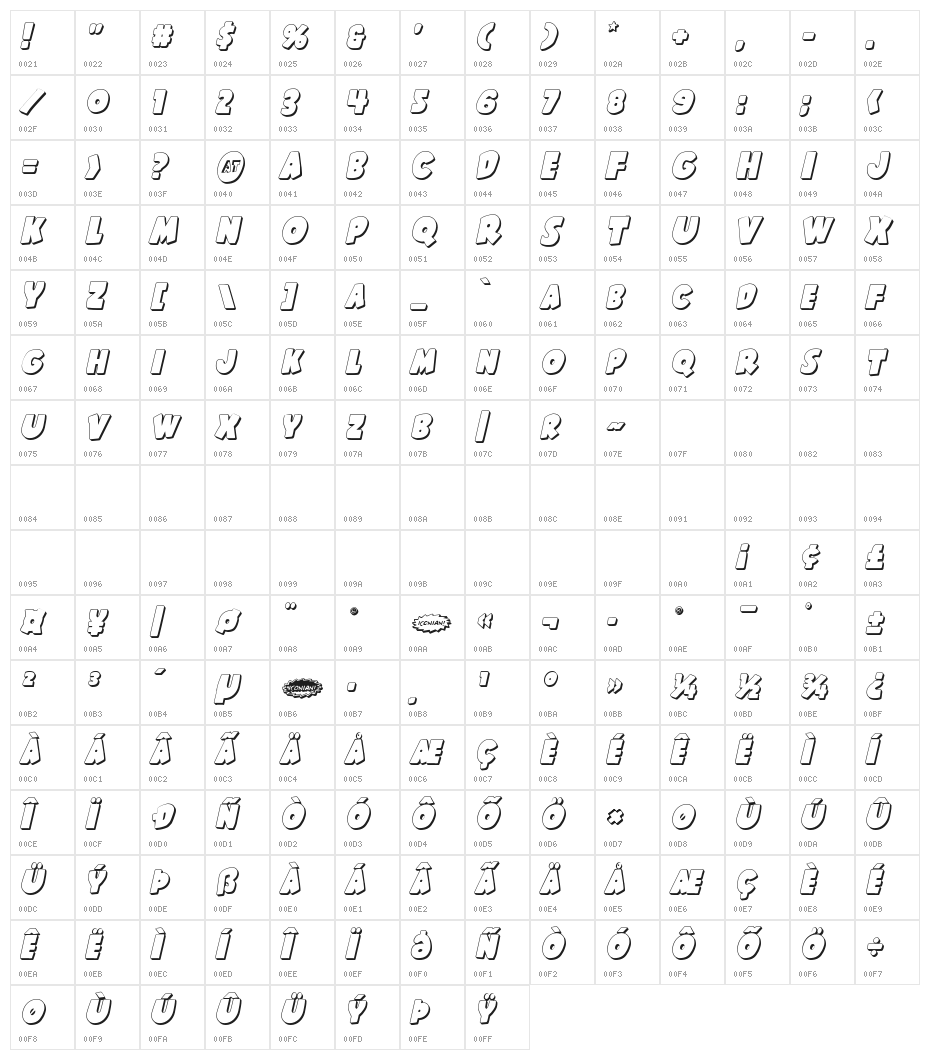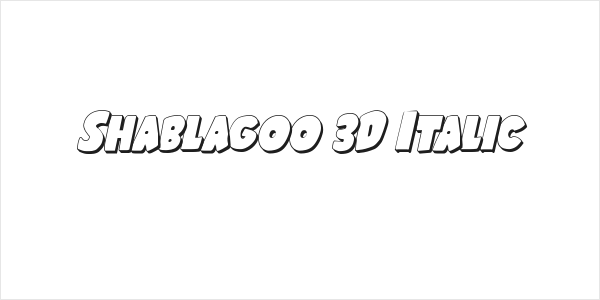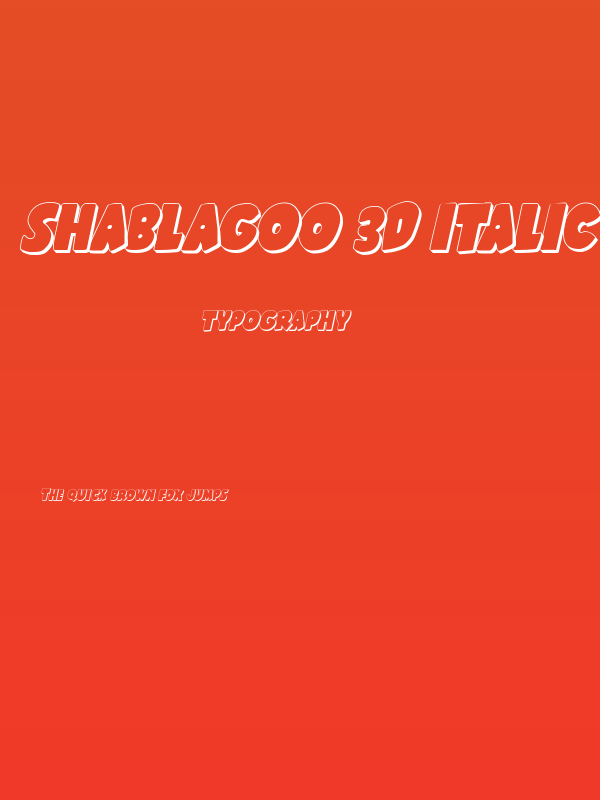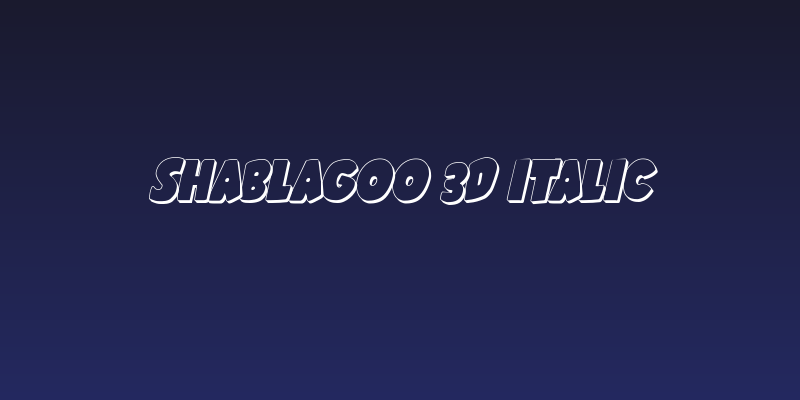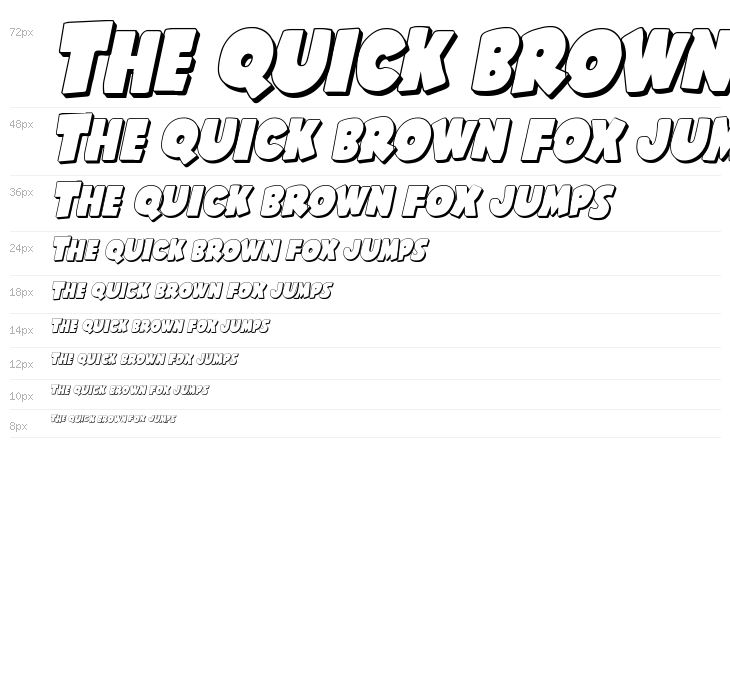
Shablagoo 3D Italic Font
Shablagoo 3D Italic Description
This font features a bold, playful 3D effect with a strong italic slant, giving it a dynamic and energetic appearance. The letters are thick and rounded, with a shadow effect that enhances the three-dimensional look. The uppercase and lowercase letters maintain a consistent style, with the numbers and special characters following the same design principles. The font's boldness and unique style make it stand out, making it ideal for projects that require a fun and eye-catching typeface.
SHABLAGOO-3D-ITALIC UPPERCASE
SHABLAGOO-3D-ITALIC LOWERCASE
SHABLAGOO-3D-ITALIC OTHER CHARS
| Overall Style | Playful, Energetic, Modern |
| Proposed Projects | Ideal for comic book titles, children's book covers, playful branding, and eye-catching posters. |